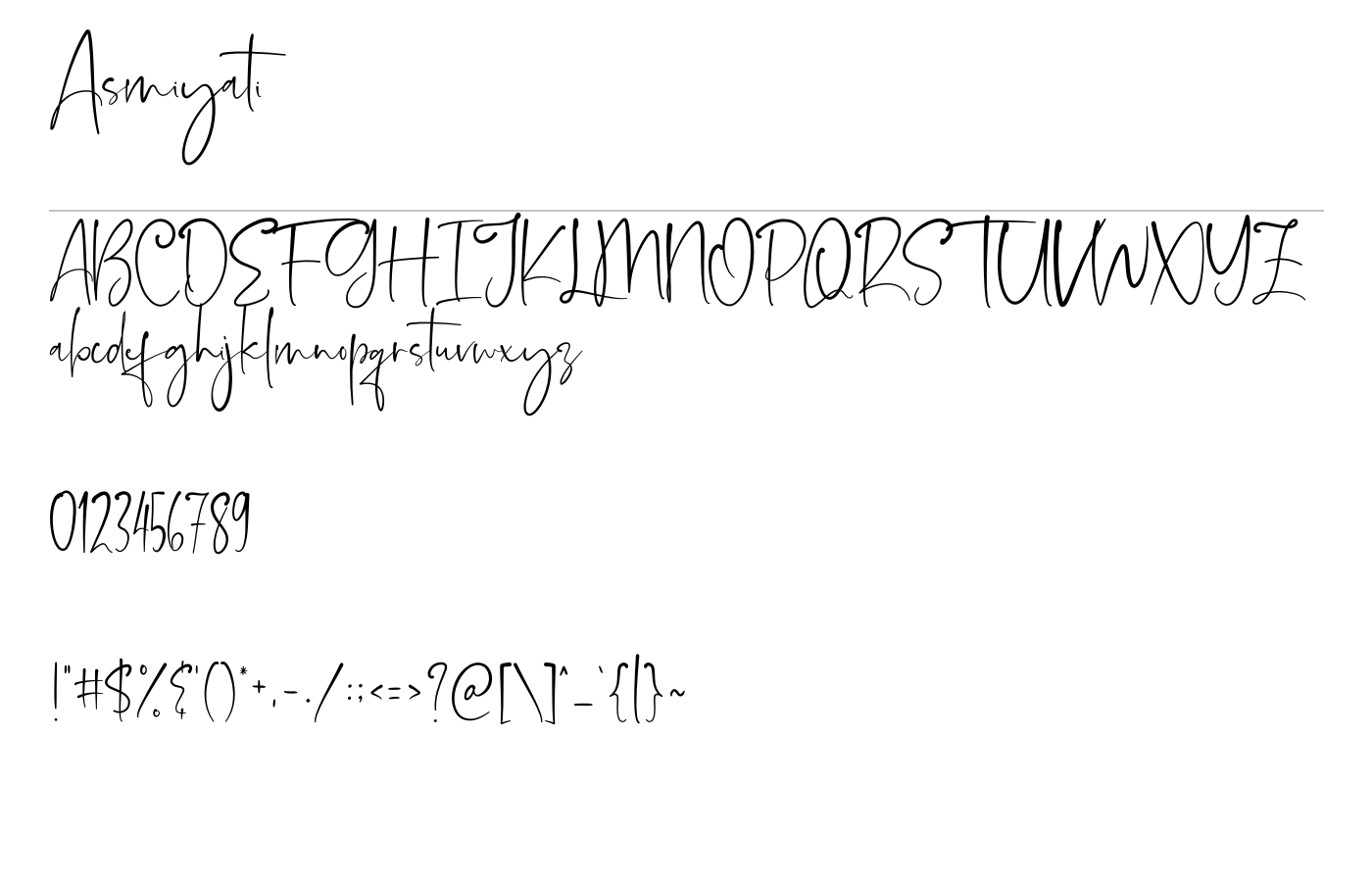
Asmiyati is a delicate, handwritten script font characterized by its tall, narrow letterforms and elegant, flowing strokes. Its light weight and airy spacing give it a graceful, personal touch that works beautifully for branding, invitations, and creative projects seeking a stylish yet approachable feel. This font captures a blend of sophistication and casual charm, making it ideal for fashion, beauty, and lifestyle designs.
Asmiyati Font
About Asmiyati Font
| Font family | Asmiyati Font |
| Designer | Muhammad Husni Haikal |